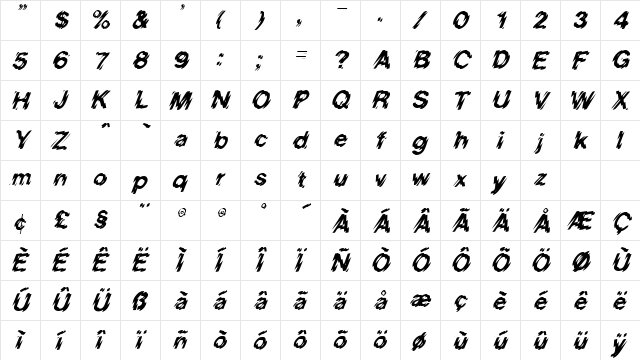
HighVoltage Italic
Design Context for HighVoltage Typeface
HighVoltage is a composed and adaptable typeface that performs quietly and consistently across a wide range of design contexts. The slanted form adds forward momentum and visual energy.
Pro Tip: Use HighVoltage for emphasis, pull quotes, and subheadings where its slanted energy can add rhythm to the layout.